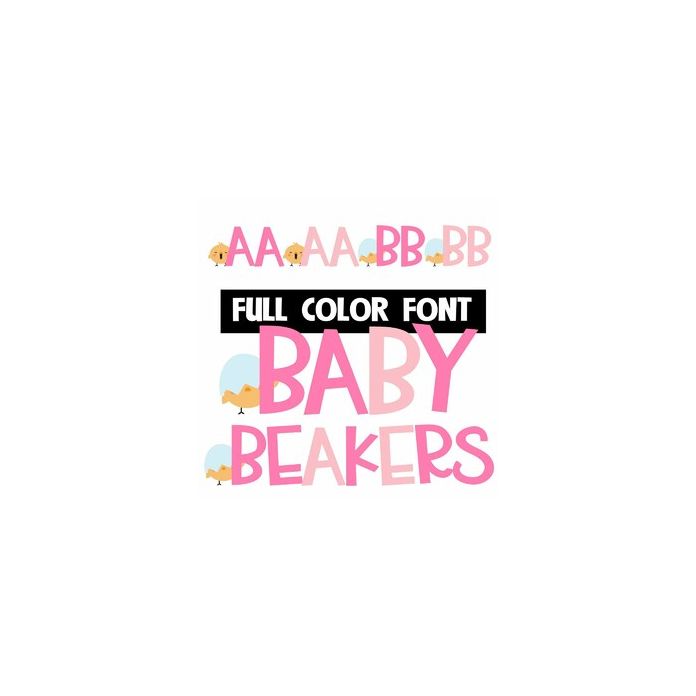
This full-color font features baby chicks on the uppercase of each letter. You can access another version of the letters by using the alt characters in Silhouette's glyph map.